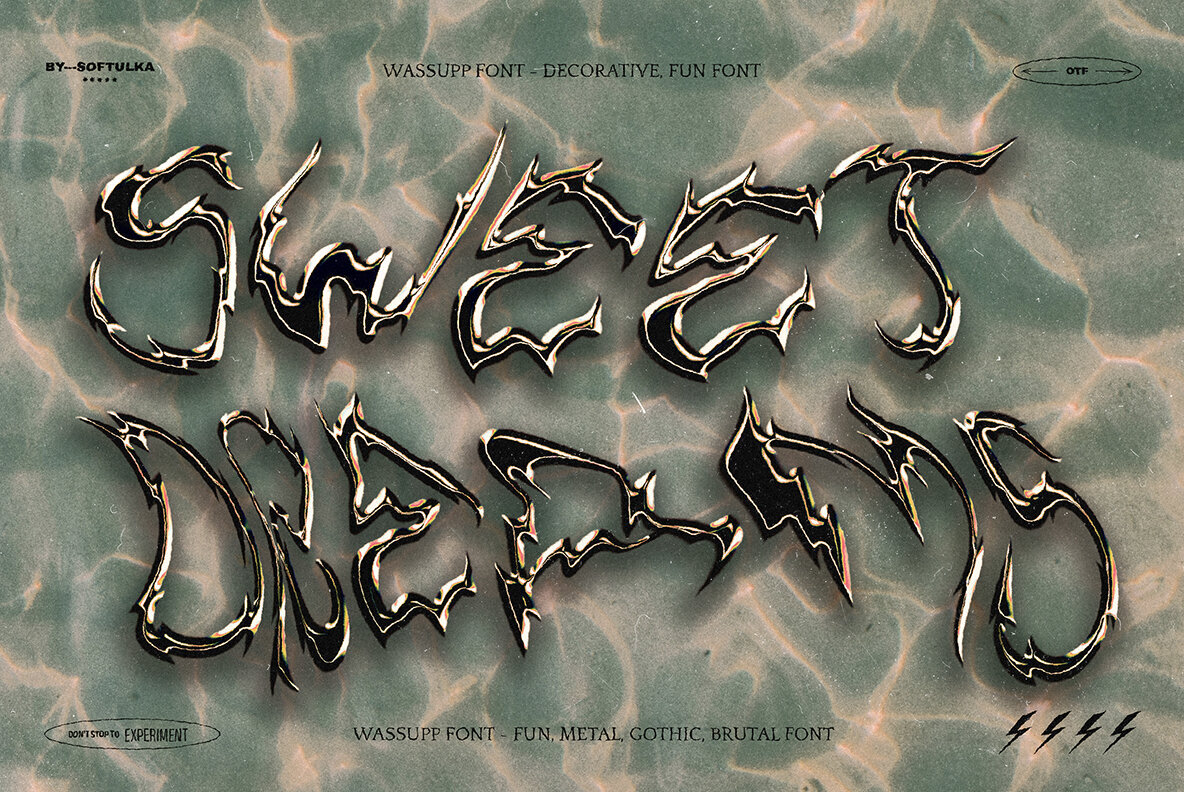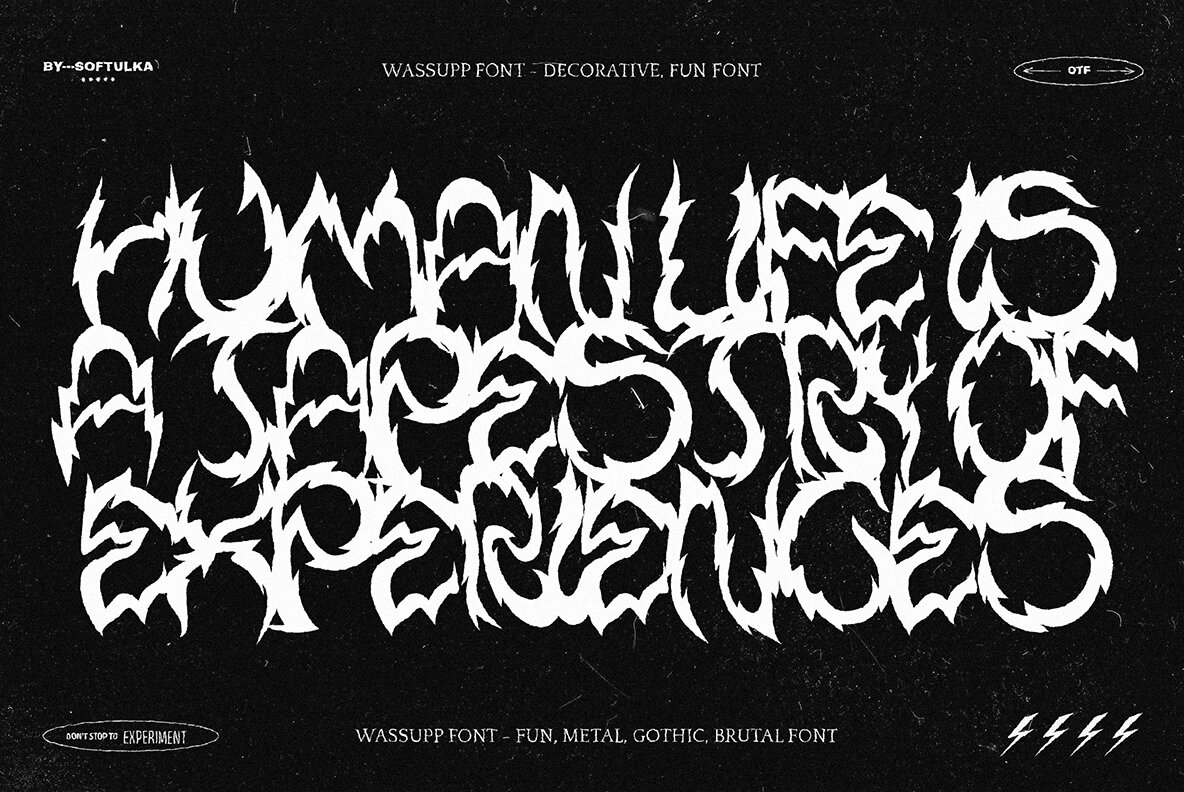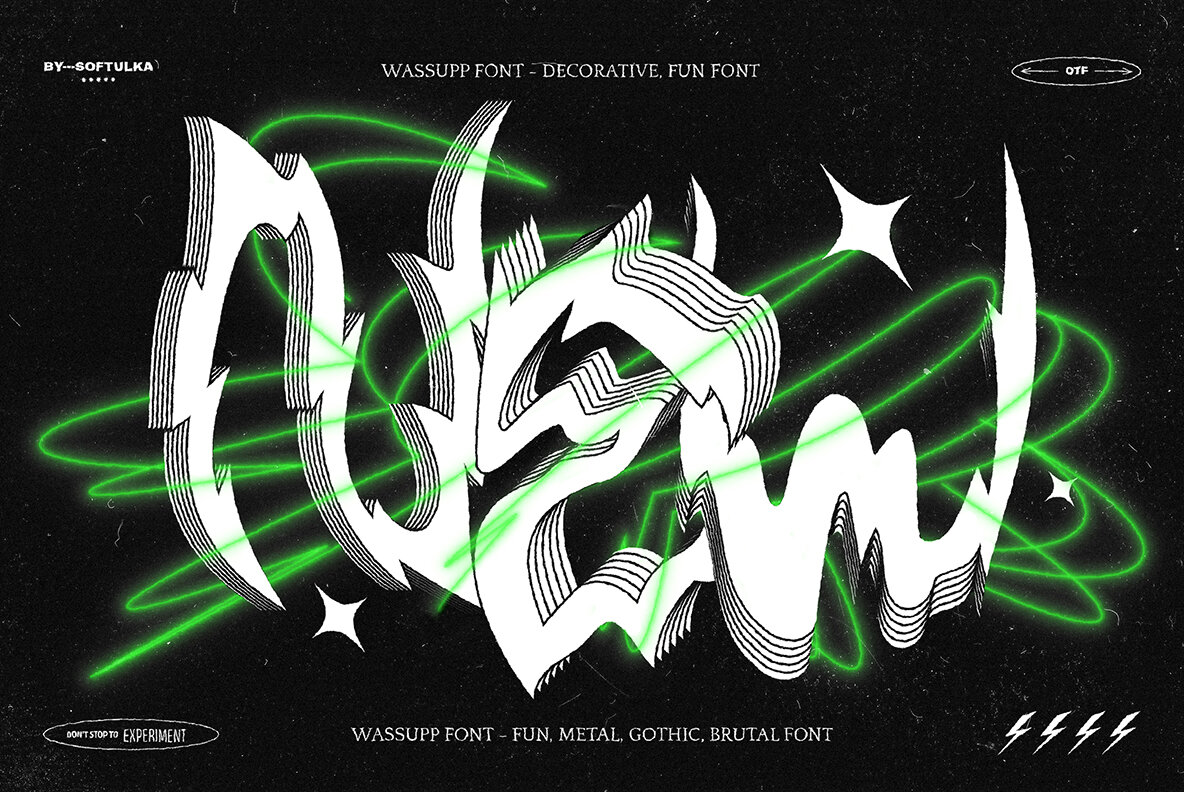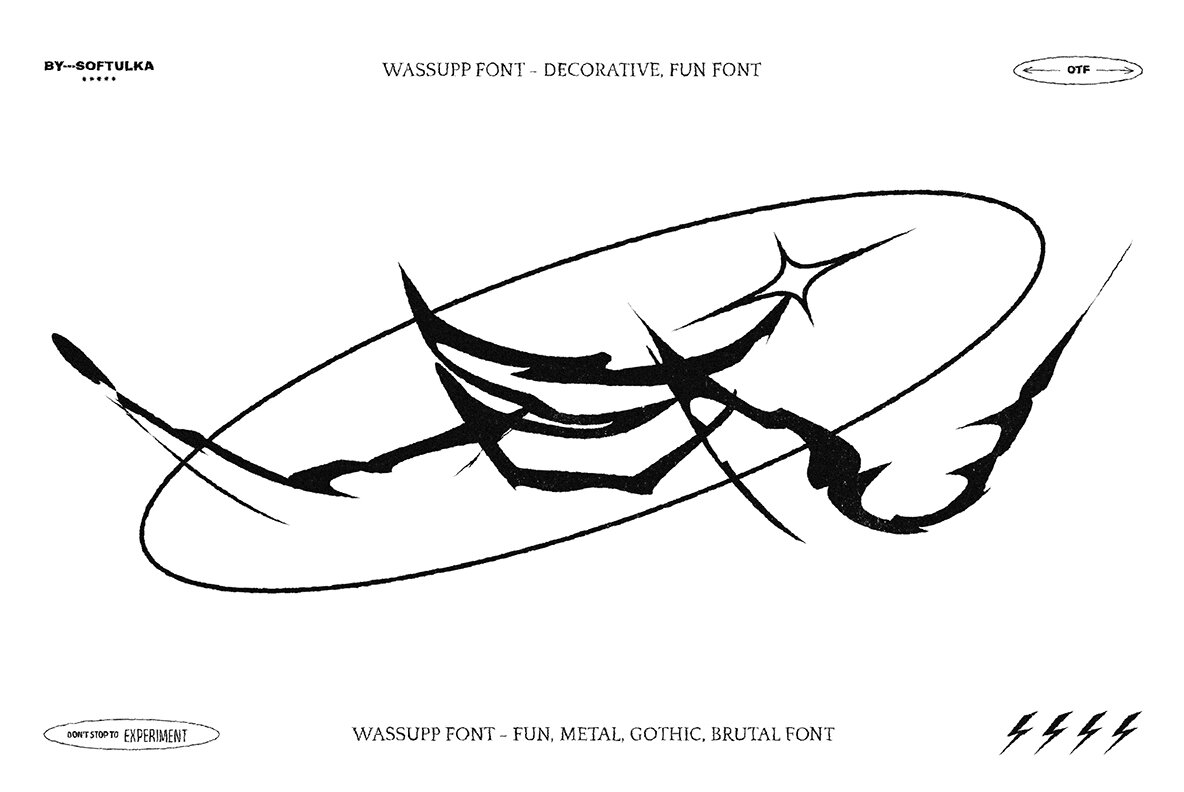
Take your designs to the next level with Wassupp, the wildly creative font from our collection! A brutally decorative and fun typeface perfect for adventurous souls, this font is perfect for bold titles, festival posters, and graphic elements on T-shirts and hoodies. Music product? We think so! Express yourself and don’t hold back your bold modern ideas with a font that loves experimentation with spacing and deformation. Hey there – you graphic designers out there! You asked for it – you got it.
The sensational Wassupp will elevate your projects and help you become a big player in the field of branding studios.